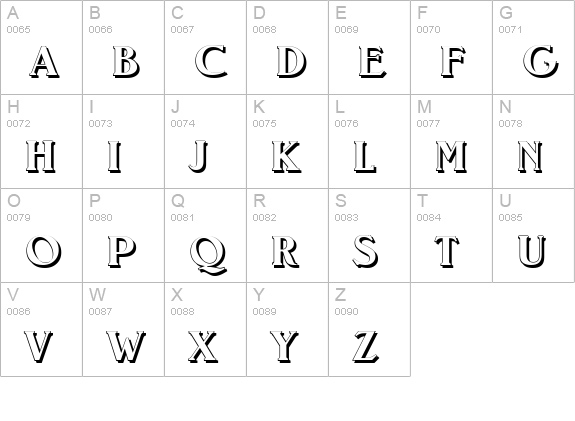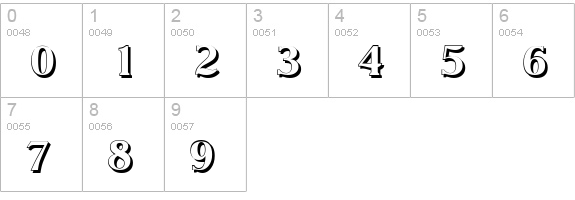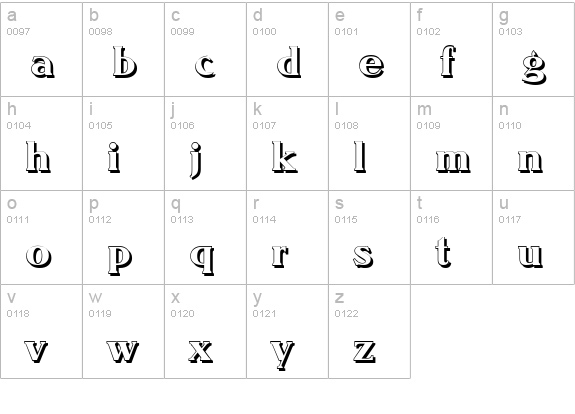
NevadaShadow-Bold is a strong, high-contrast variant in the NevadaShadow typeface family \xE2\x80\x94 well suited to headlines, attention-grabbing titles, and strong calls-to-action.
NevadaShadow-Bold font is a bold and striking typeface that exudes strength and modernity. Its sharp edges and clean lines make it perfect for headlines, titles, and graphic designs that require a strong visual impact. The bold weight of this font ensures that your message will stand out and command attention. What's even better is that NevadaShadow-Bold font is available for free download at FontsMarket.com. This means you can easily access this powerful font and use it in your projects without any cost involved. So go ahead and give your designs a bold and dynamic touch with NevadaShadow-Bold font today!